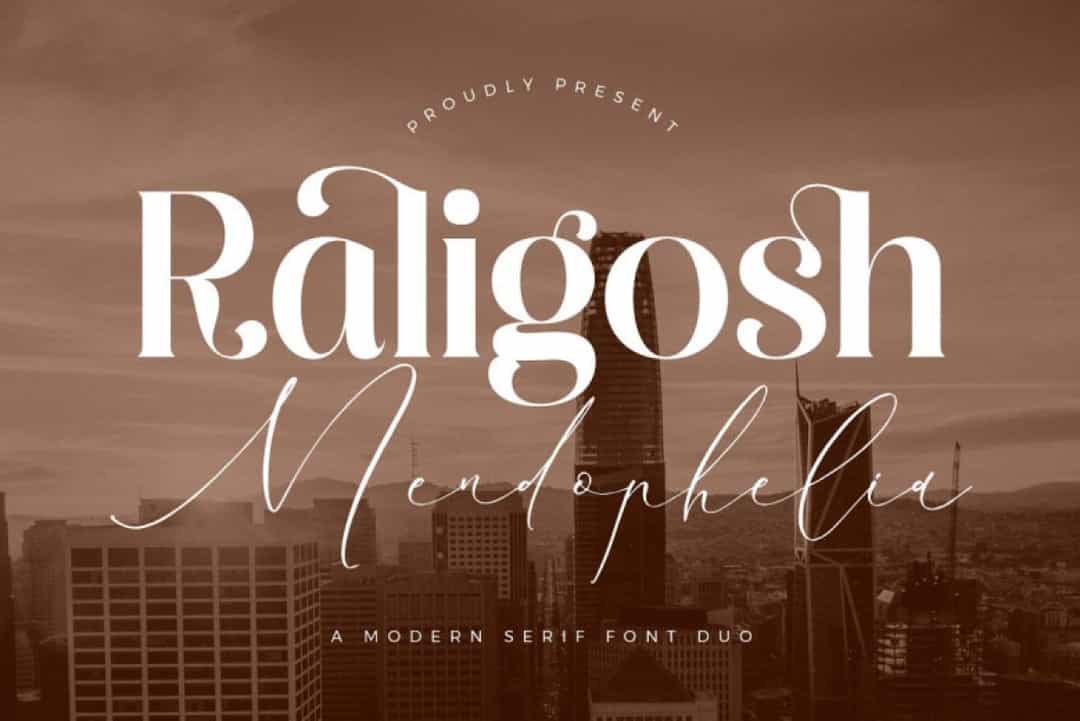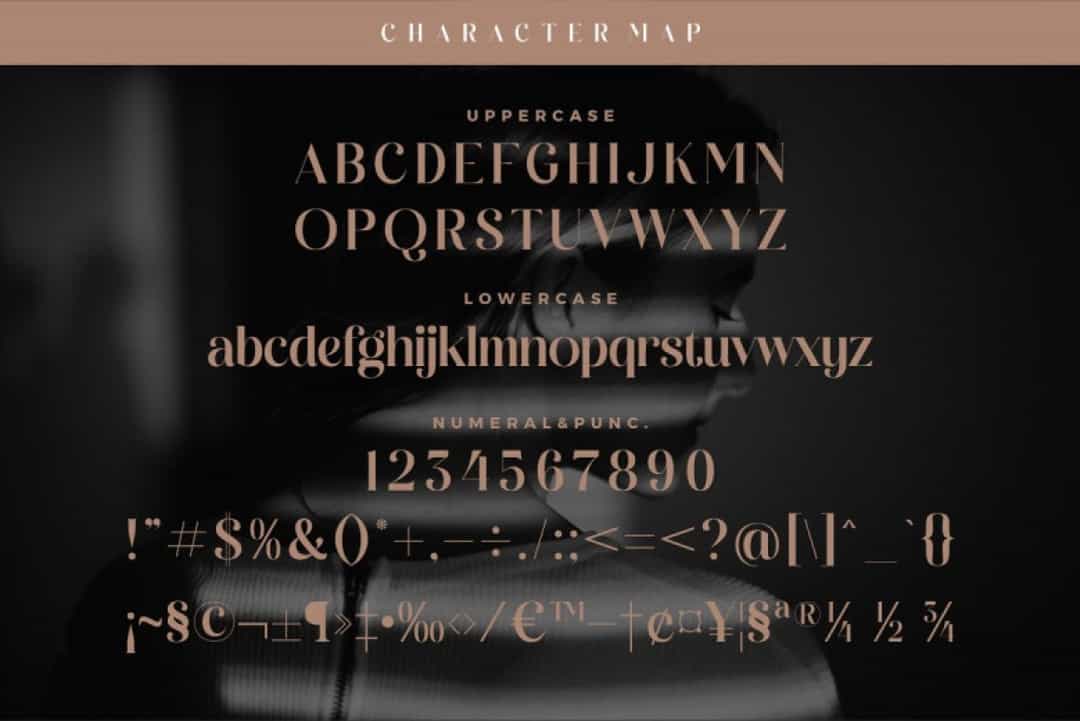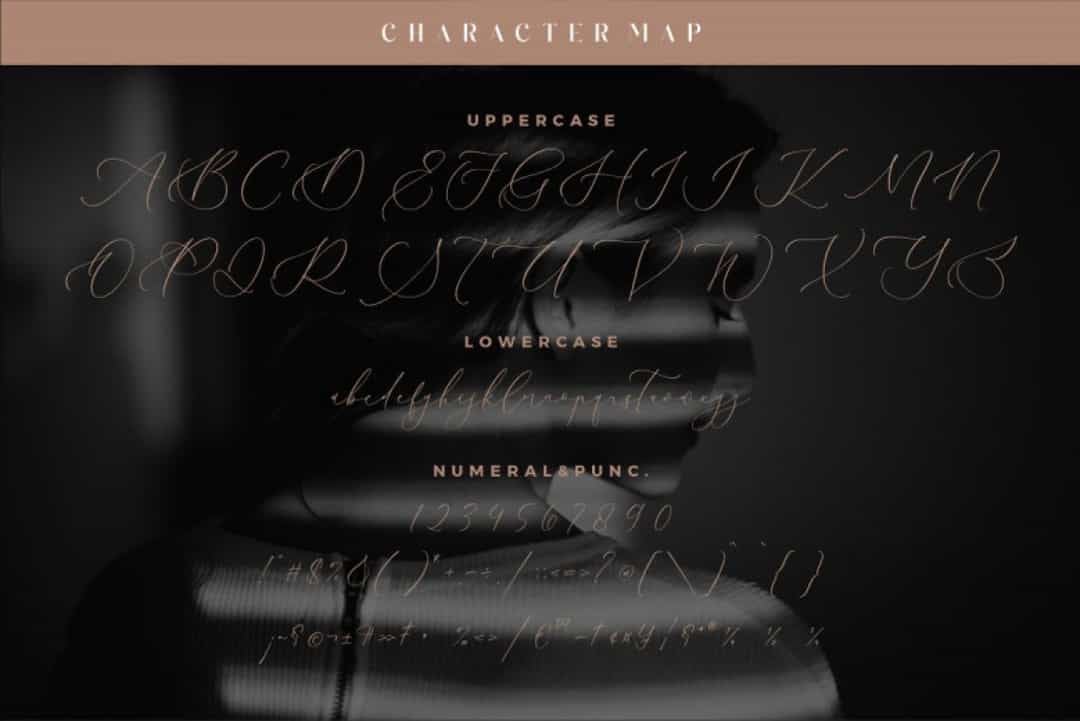
Raligosh Mendophelia Font duo by Storytype offers a modern yet classical aesthetic and is ideal for use as logo, movie/book name design or fashion brand design. Magazine letters and clothing quotations may also benefit from using this typeface.